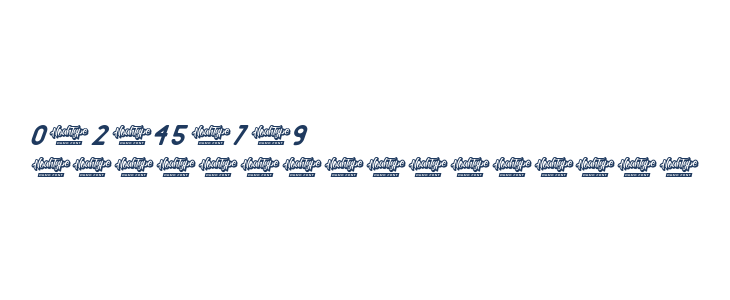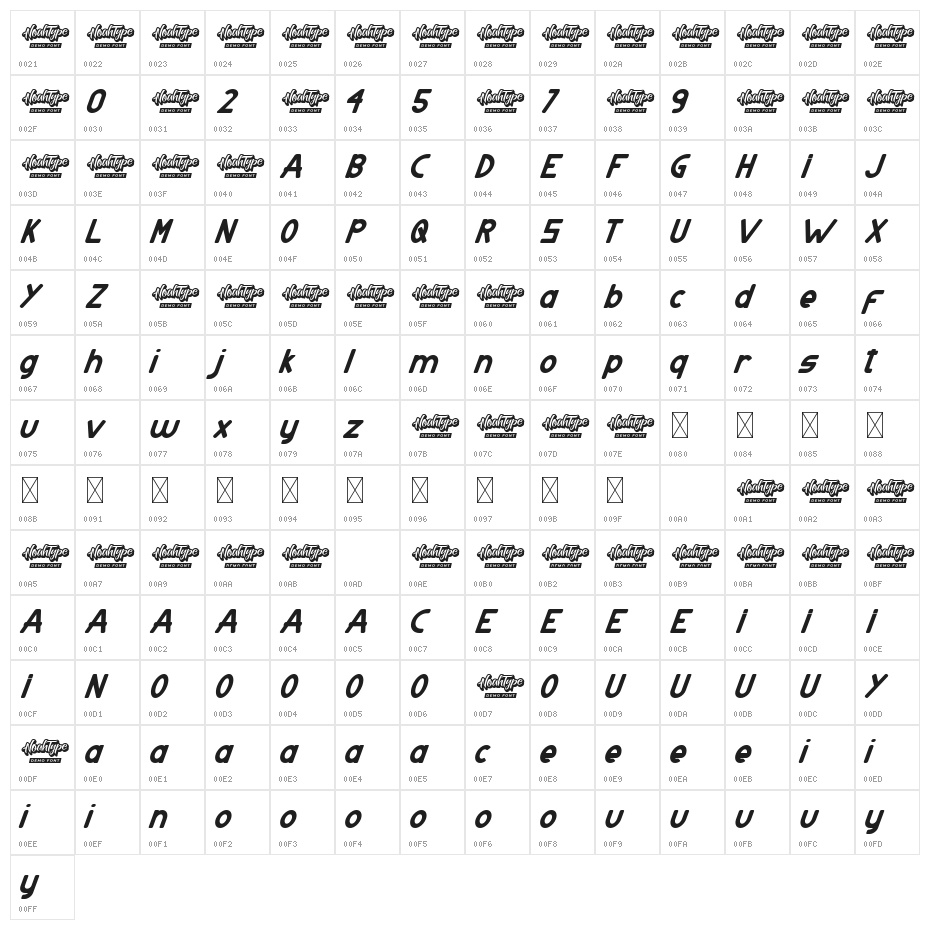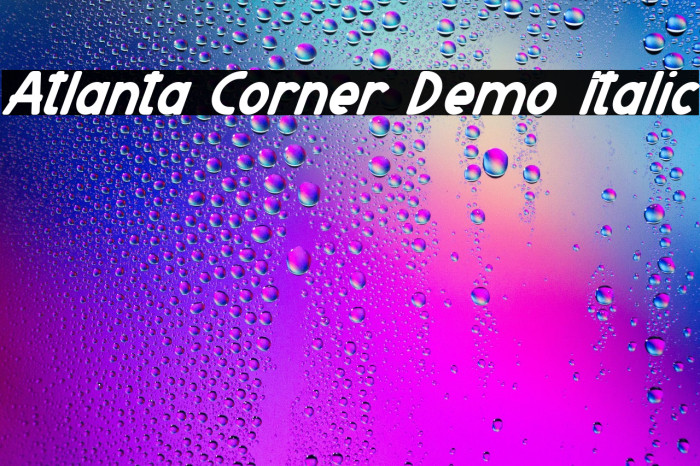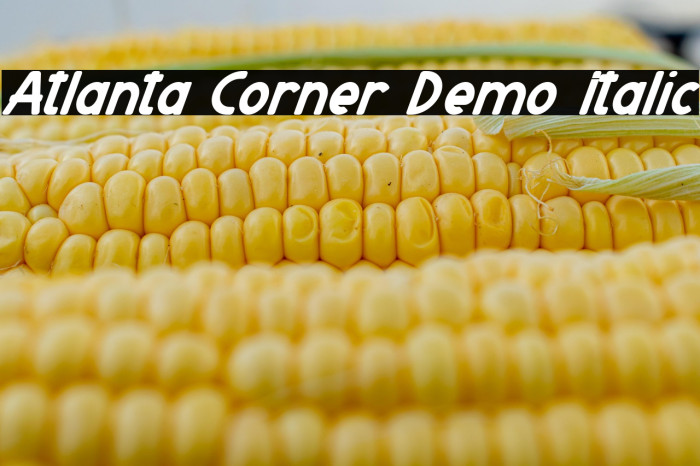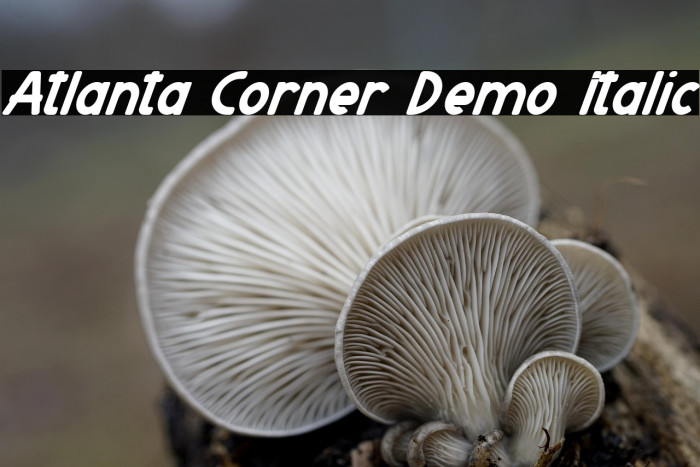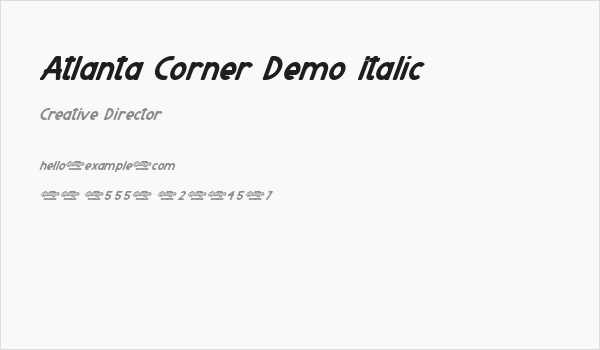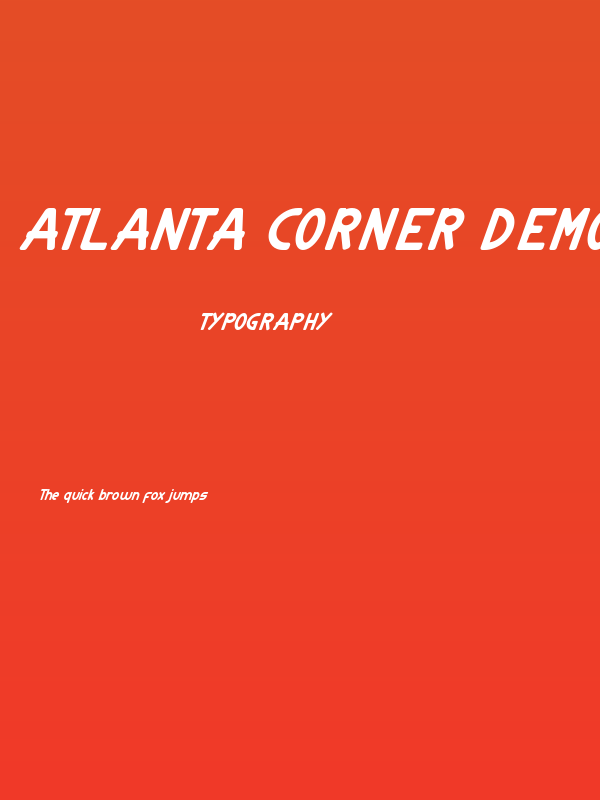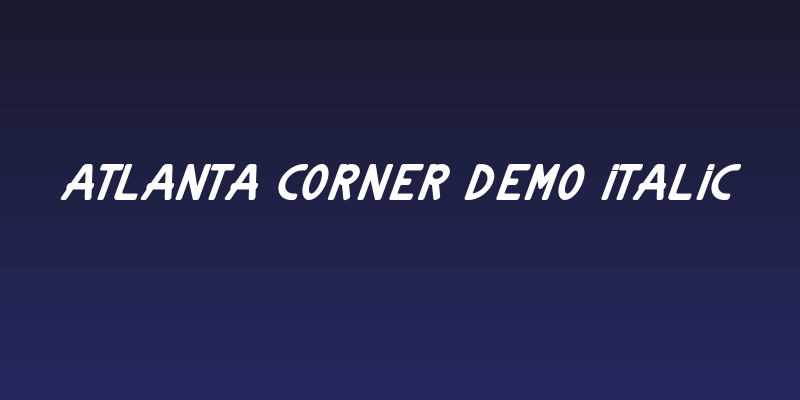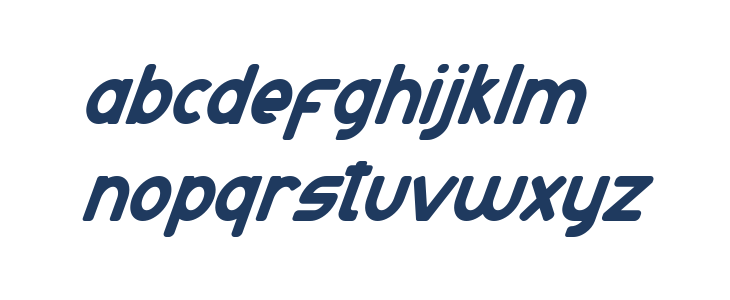
Atlanta Corner Demo Italic Font
Atlanta Corner Demo Italic Description
This font features a dynamic and modern italic style with smooth, flowing curves and a slightly condensed form. The characters are bold and have a consistent stroke width, giving them a strong presence. The uppercase letters are slightly taller than the lowercase, and the numbers are designed to match the overall style seamlessly. The font includes a set of special characters that maintain the same aesthetic, making it versatile for various design needs. Its clean lines and contemporary feel make it suitable for a wide range of applications.
| Use Case | Logos, Headlines, Advertising |
| Proposed Projects | Ideal for branding, advertising, and digital media projects that require a modern and dynamic look. |